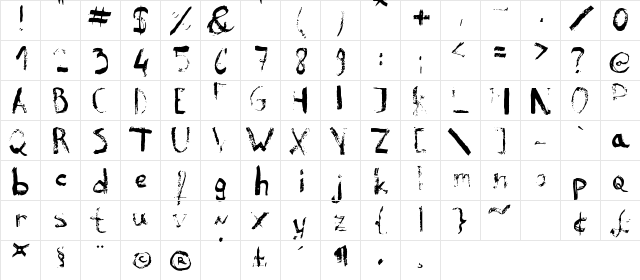
Reeld Typeface Regular
Design Context for Reeld Typeface Typeface
Reeld Typeface is a composed and adaptable typeface that performs quietly and consistently across a wide range of design contexts.